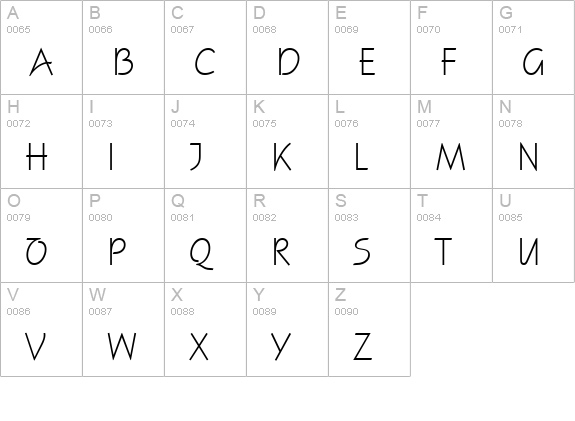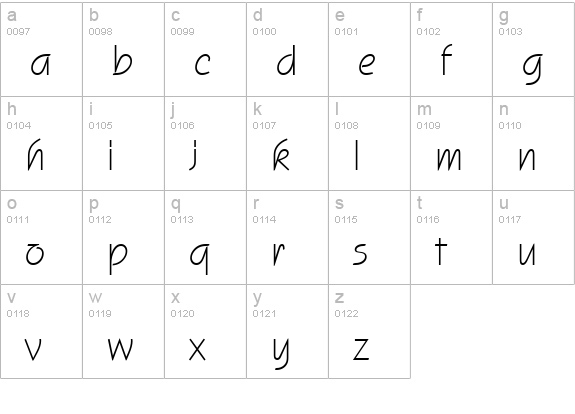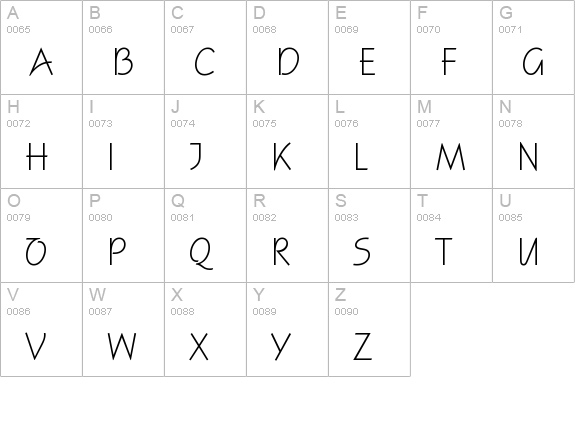
SquireD Font Details
Introducing SquireD Font, a whimsical and playful typeface that will bring a dash of charm to your designs. With its unique and quirky letterforms, SquireD Font is perfect for adding a touch of personality to any project. This delightful font is freely available for download at FontsMarket.com, making it accessible to designers and creatives worldwide. Whether you're working on a logo, a poster, or a social media graphic, SquireD Font will effortlessly grab attention and evoke a sense of joy. The carefully designed curves and strokes of SquireD Font create a sense of movement and liveliness, making it ideal for projects that require a youthful and fun aesthetic. Its versatility allows it to be used in a variety of contexts, from children's book illustrations to packaging designs. With SquireD Font, your text comes to life with a dynamic energy that captivates and engages viewers. Its bold and playful nature adds a touch of whimsy to any design, making it the perfect choice for those seeking a font that stands out from the crowd. Whether you're a professional designer or a hobbyist, SquireD Font offers a delightful and creative way to express your ideas. Its extensive character set includes alternates and ligatures, allowing you to customize and personalize your designs with ease. So why wait? Discover the magic of SquireD Font today and bring your projects to life with its captivating charm. Remember, this fantastic font is freely available to download at FontsMarket.com, ensuring that you can unleash your creativity without any restrictions.